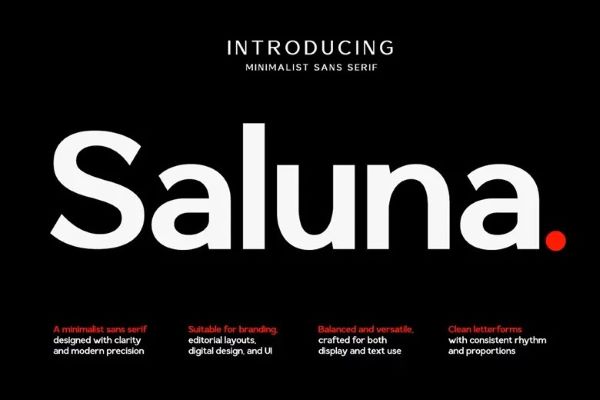
Saluna Font
Meet Saluna, a sleek and minimalist sans-serif typeface engineered for modern design challenges. With its precisely balanced geometry and clean proportions, this font strikes the perfect harmony between readability and contemporary aesthetics. Saluna’s neutral yet confident character makes it incredibly adaptable, working beautifully alongside other typefaces or commanding attention as a standalone choice for your most demanding projects.
From corporate branding and editorial design to web interfaces and marketing campaigns, Saluna excels across diverse applications. Its carefully crafted letterforms and optimized spacing ensure flawless performance whether displayed at large scales or compact text sizes, making it an indispensable tool for designers seeking reliability and versatility. Explore more typography options in our curated selection of free fonts to elevate your creative work.